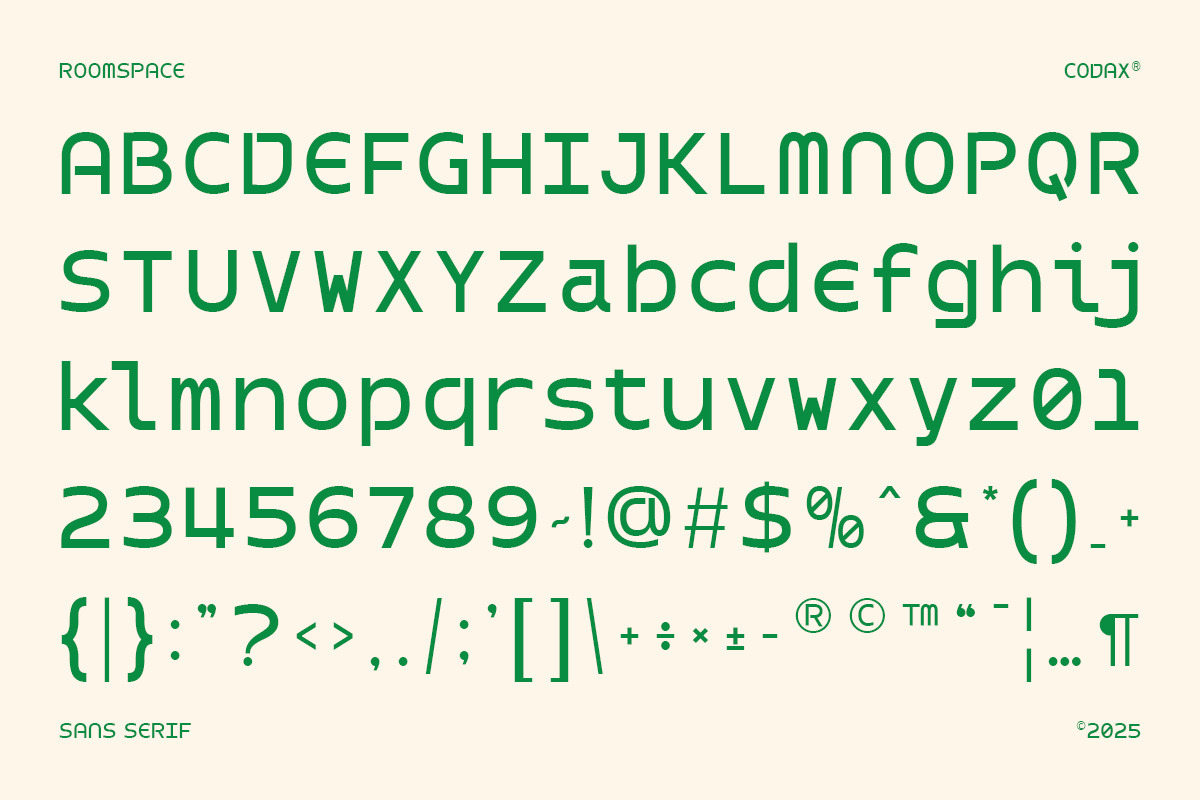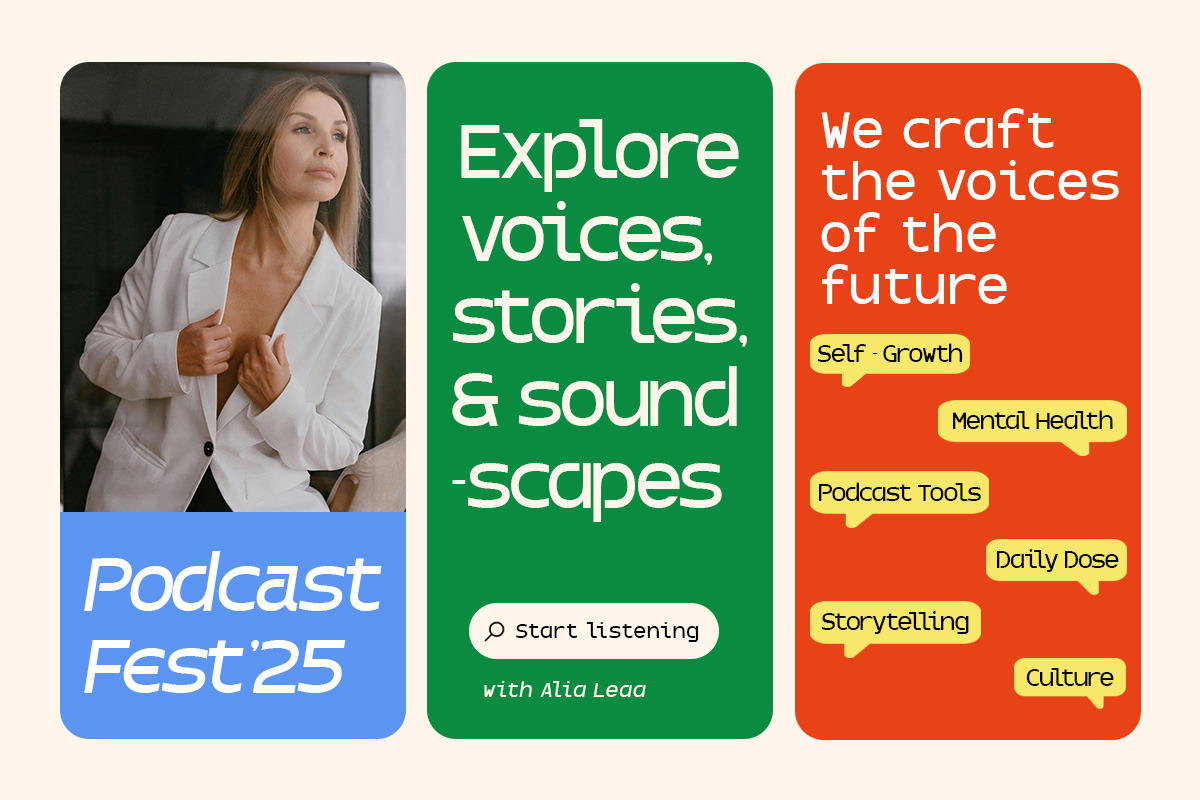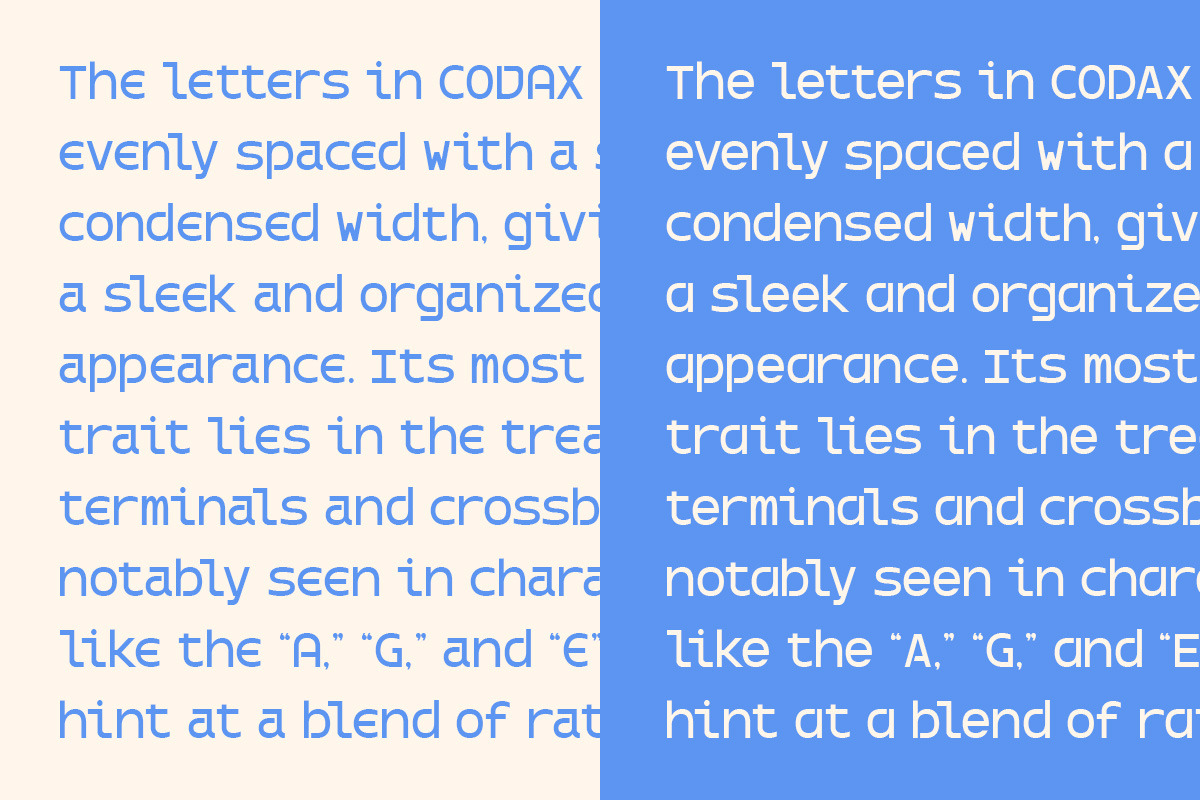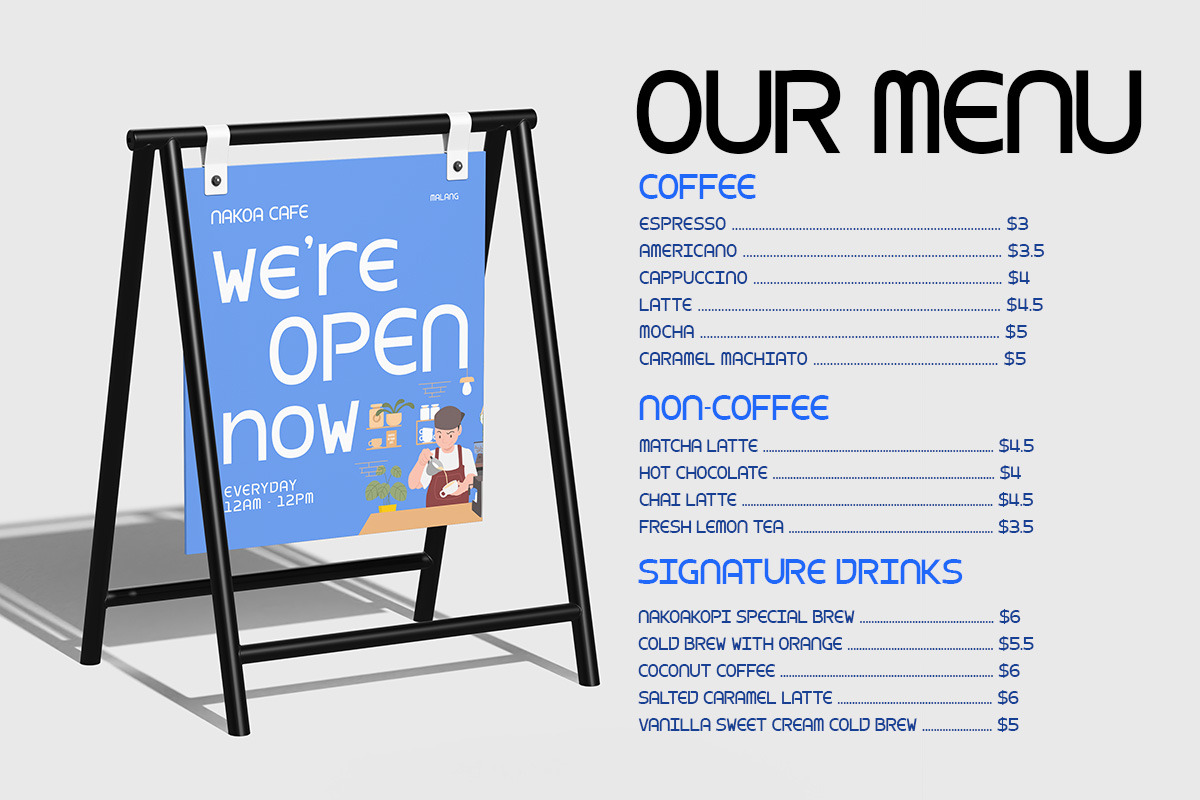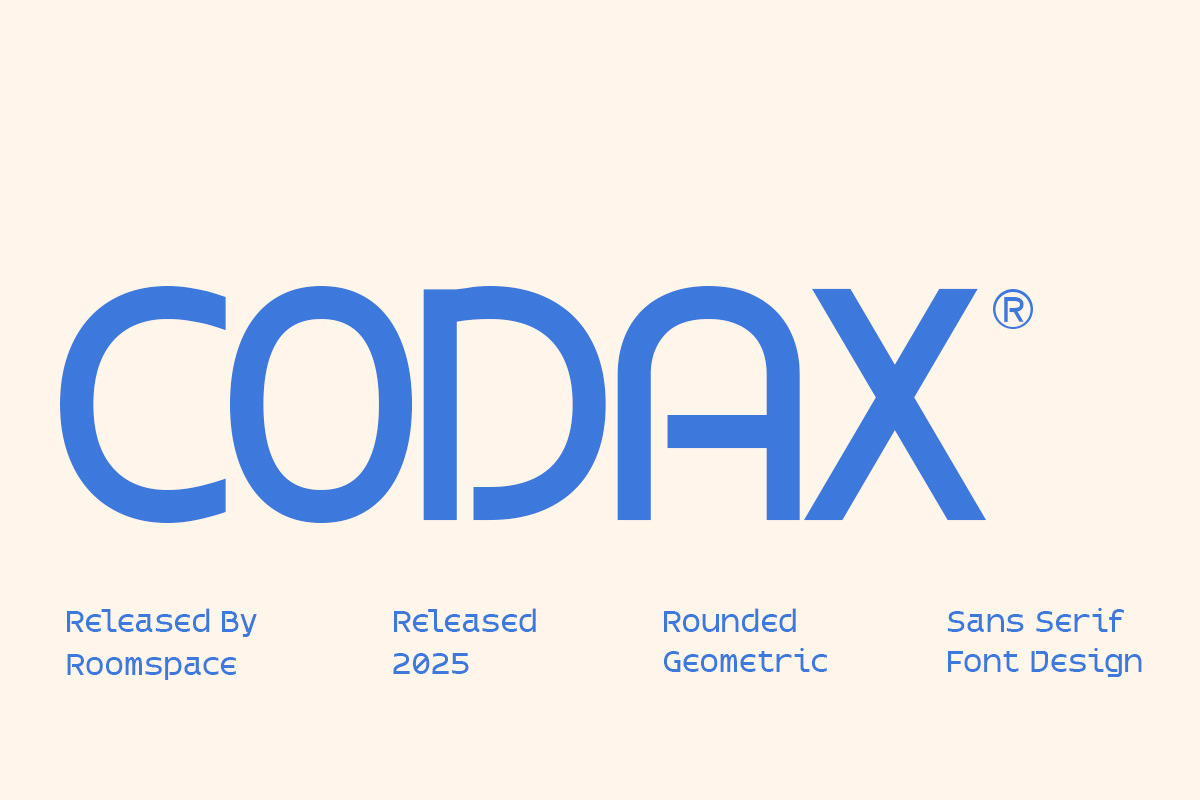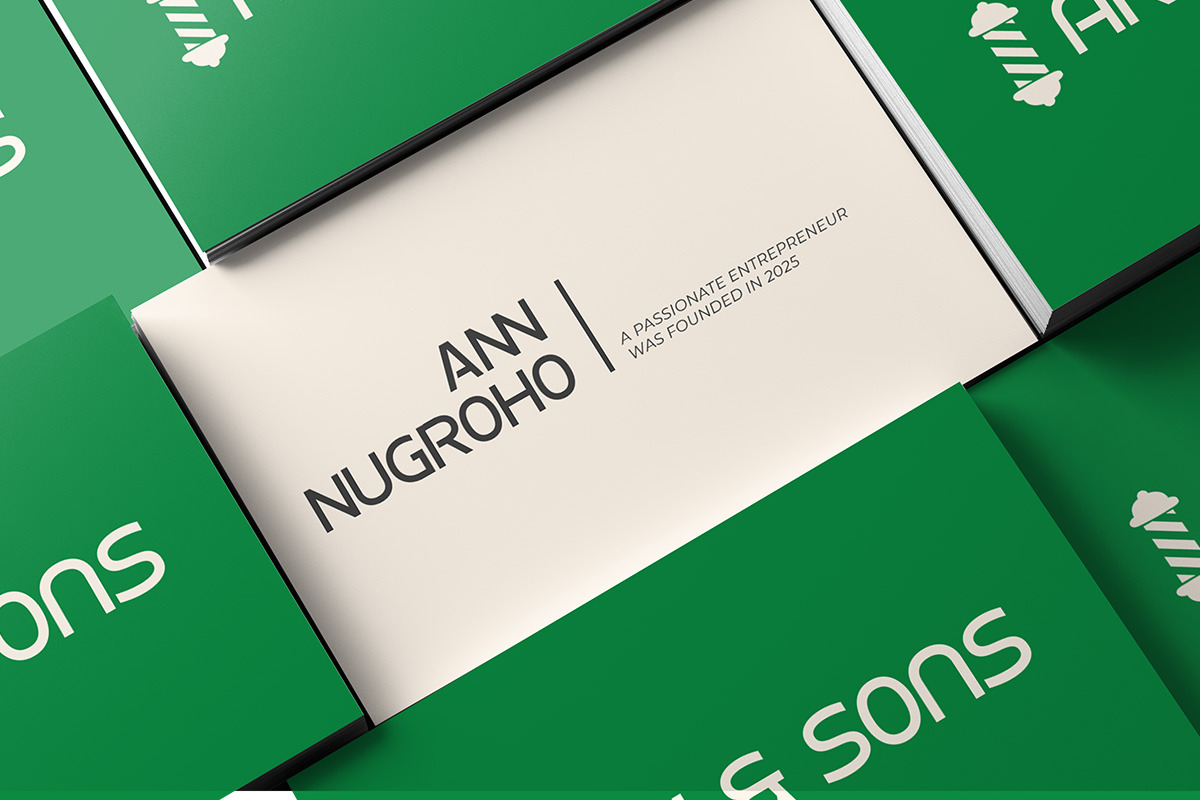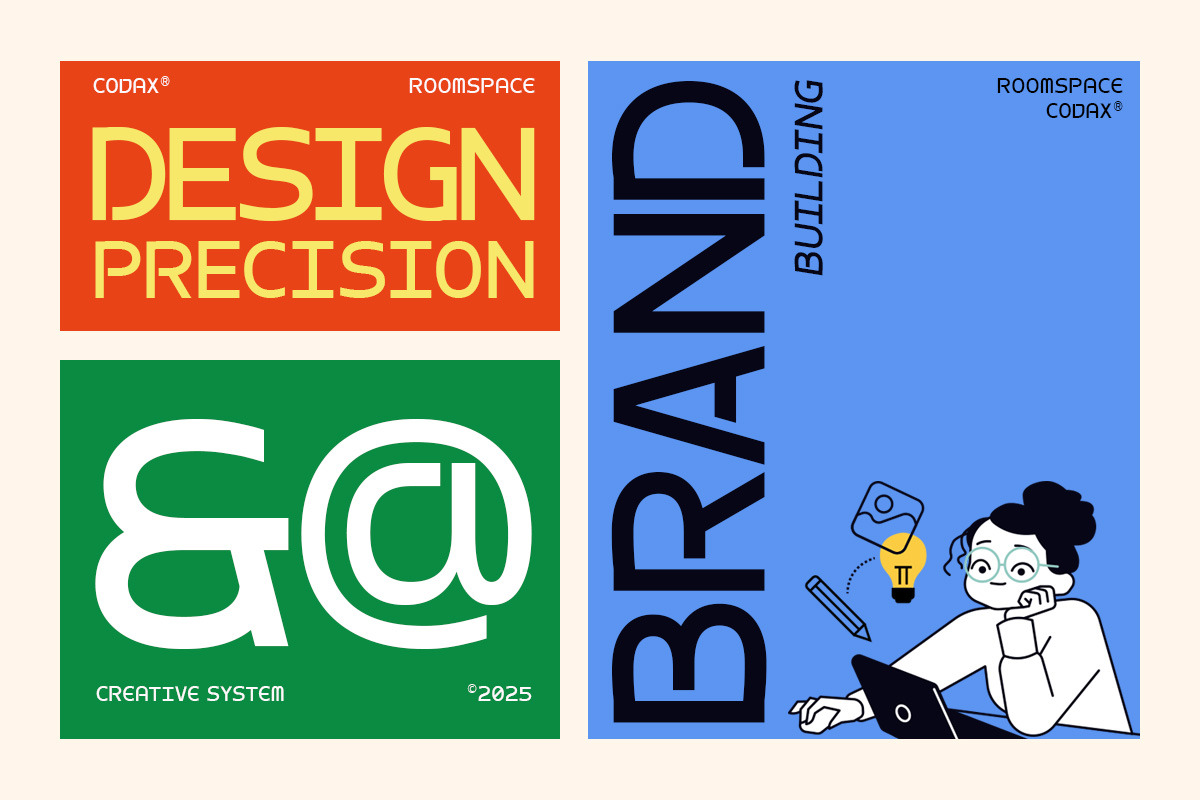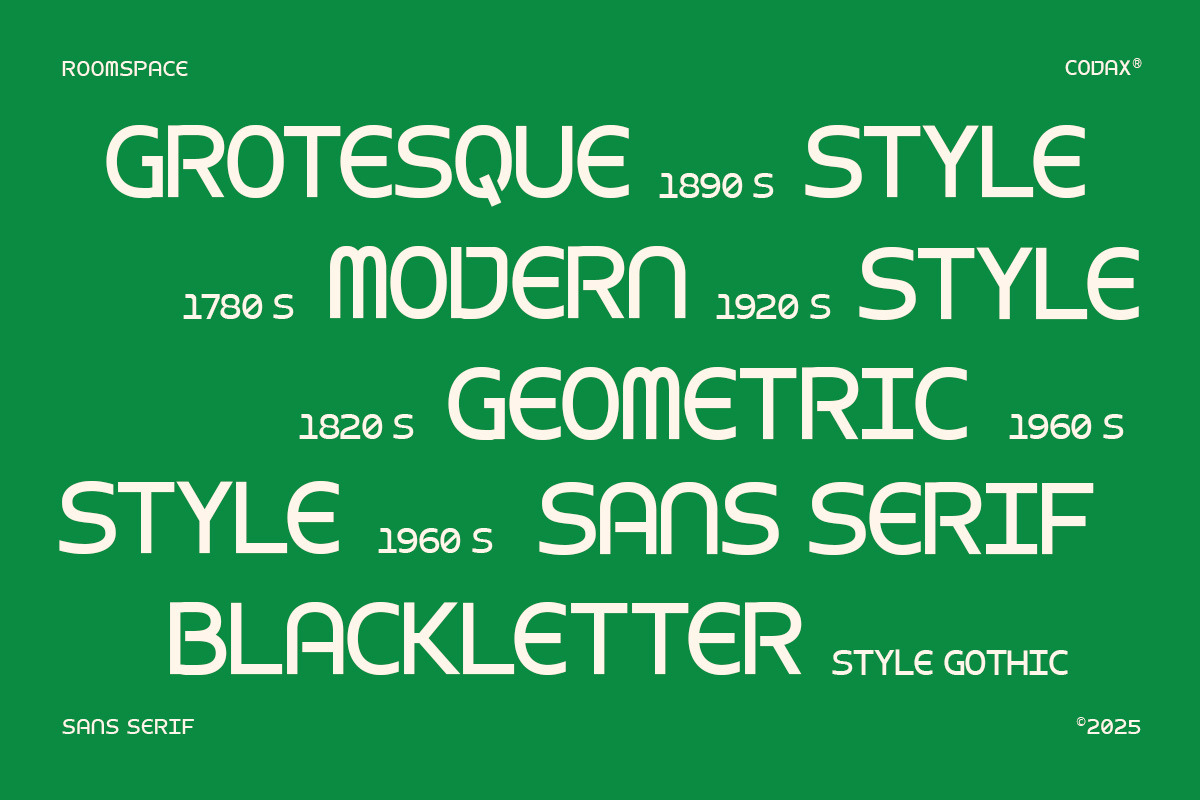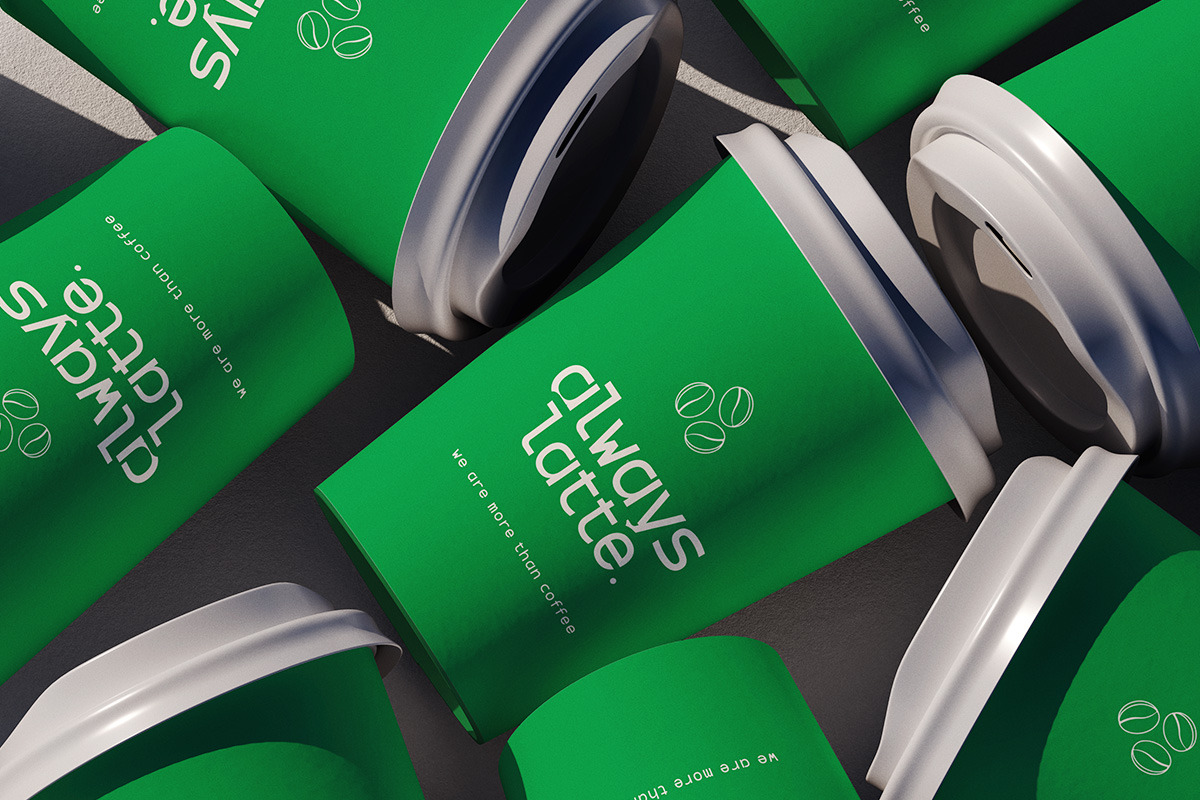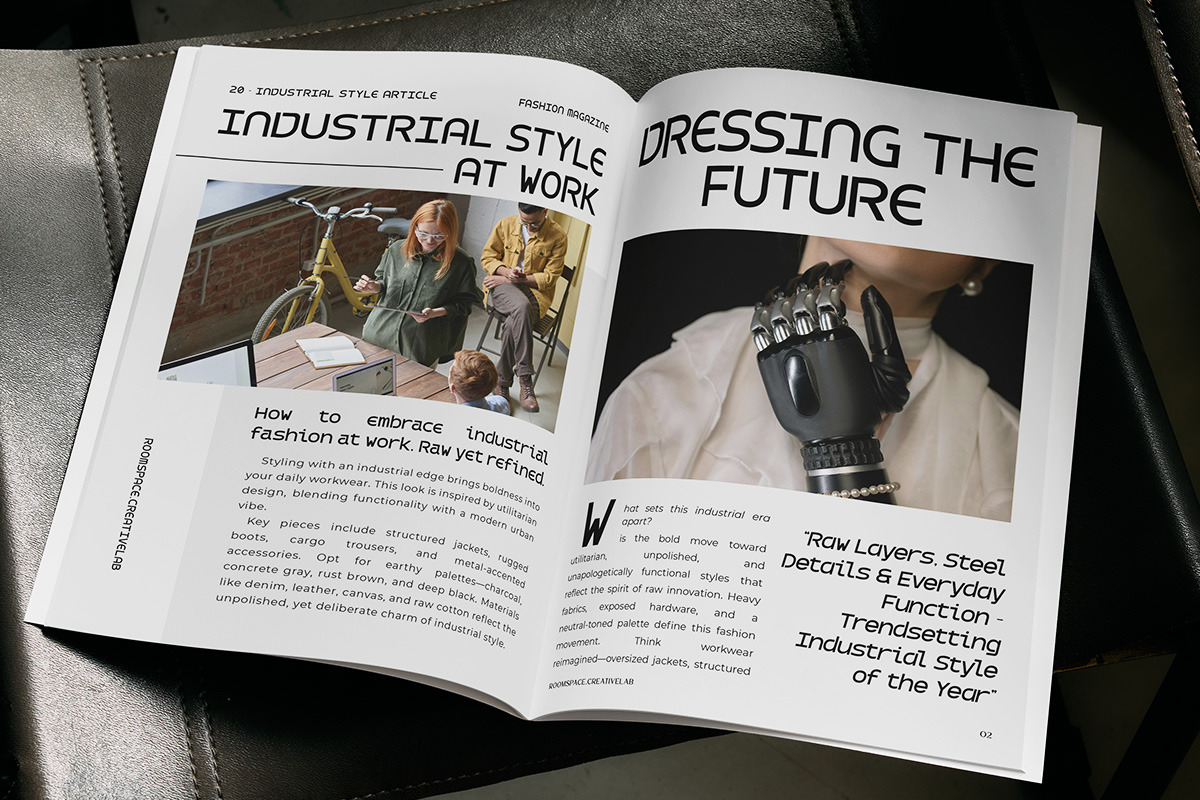
Codax Corporate Minimal Modern Font
Codax is a rounded geometric sans serif font with a clean and futuristic look. Designed with simplicity and precision, Codax gives your designs a sleek, modern tone while maintaining excellent readability.
With its smooth curves and bold structure, Codax is ideal for tech startups, UI/UX design, digital branding, logo, apps, and futuristic editorial layouts. Its friendly, modern, and versatile style makes it a must-have for designers who want clarity with a distinctive touch.